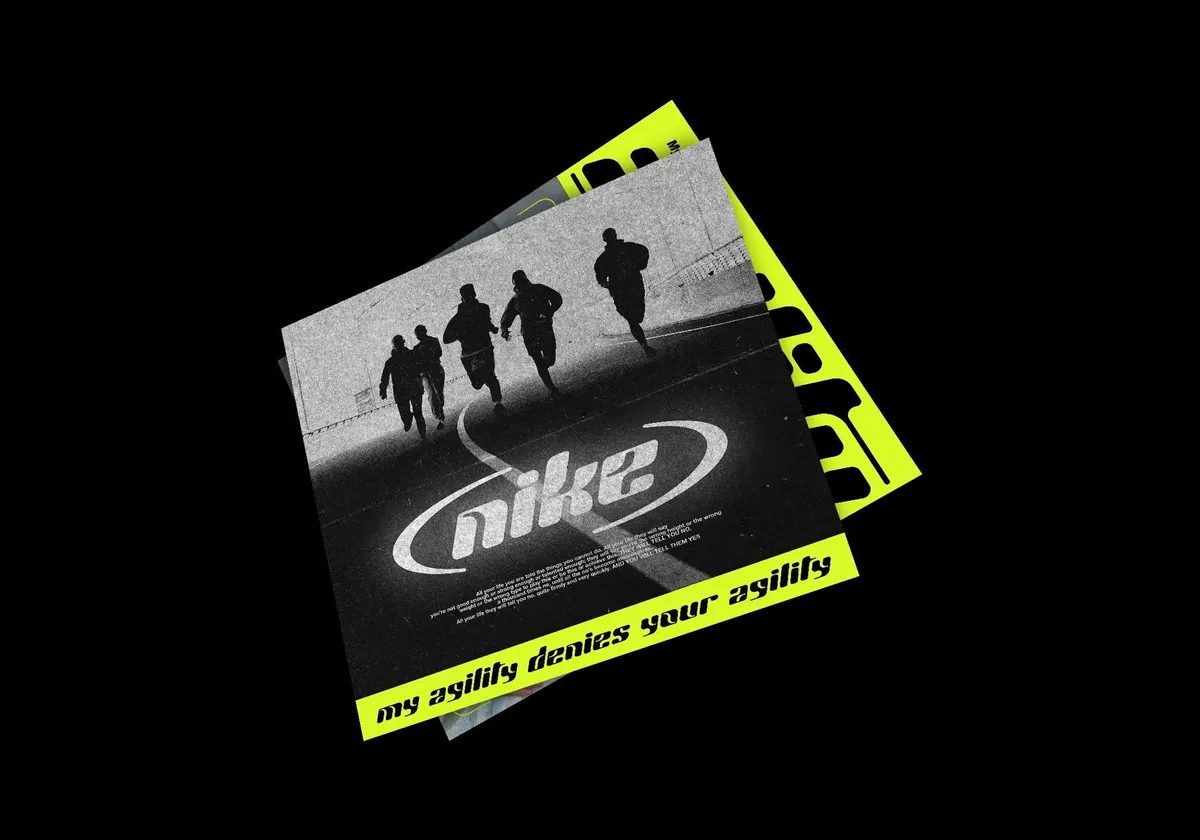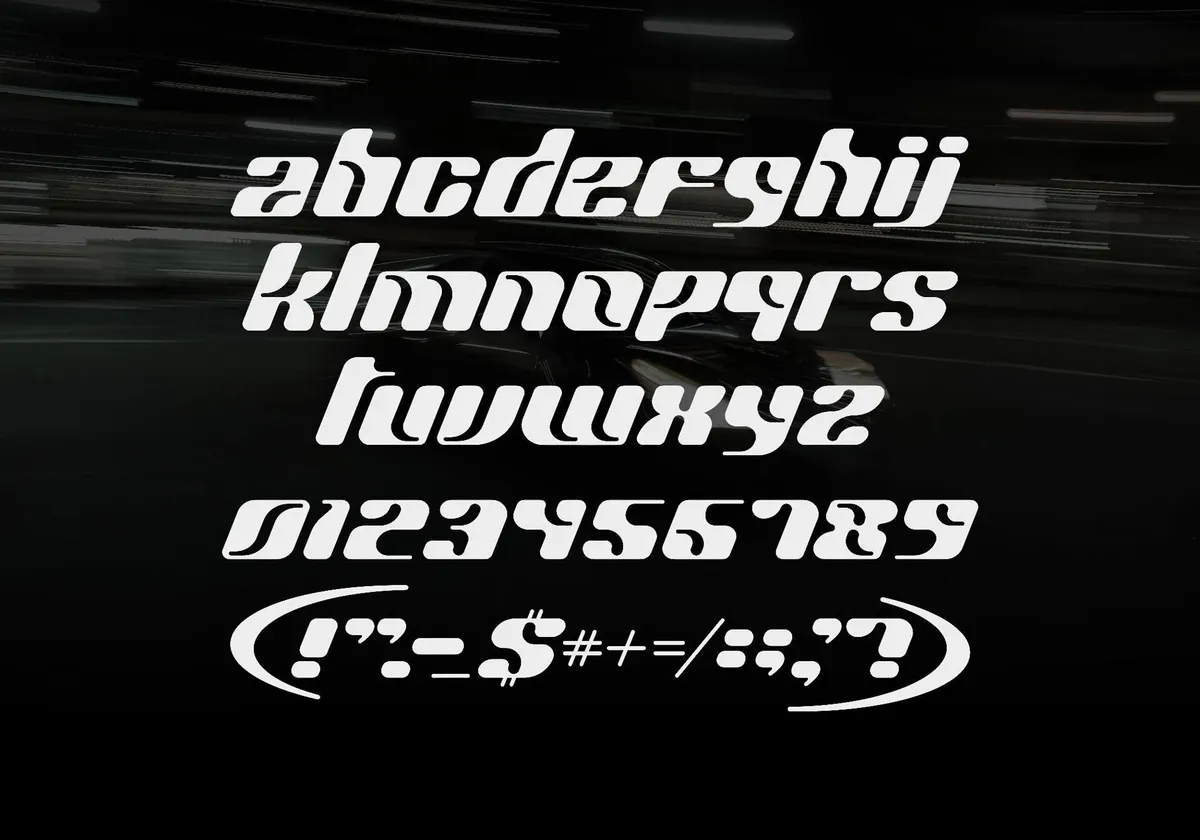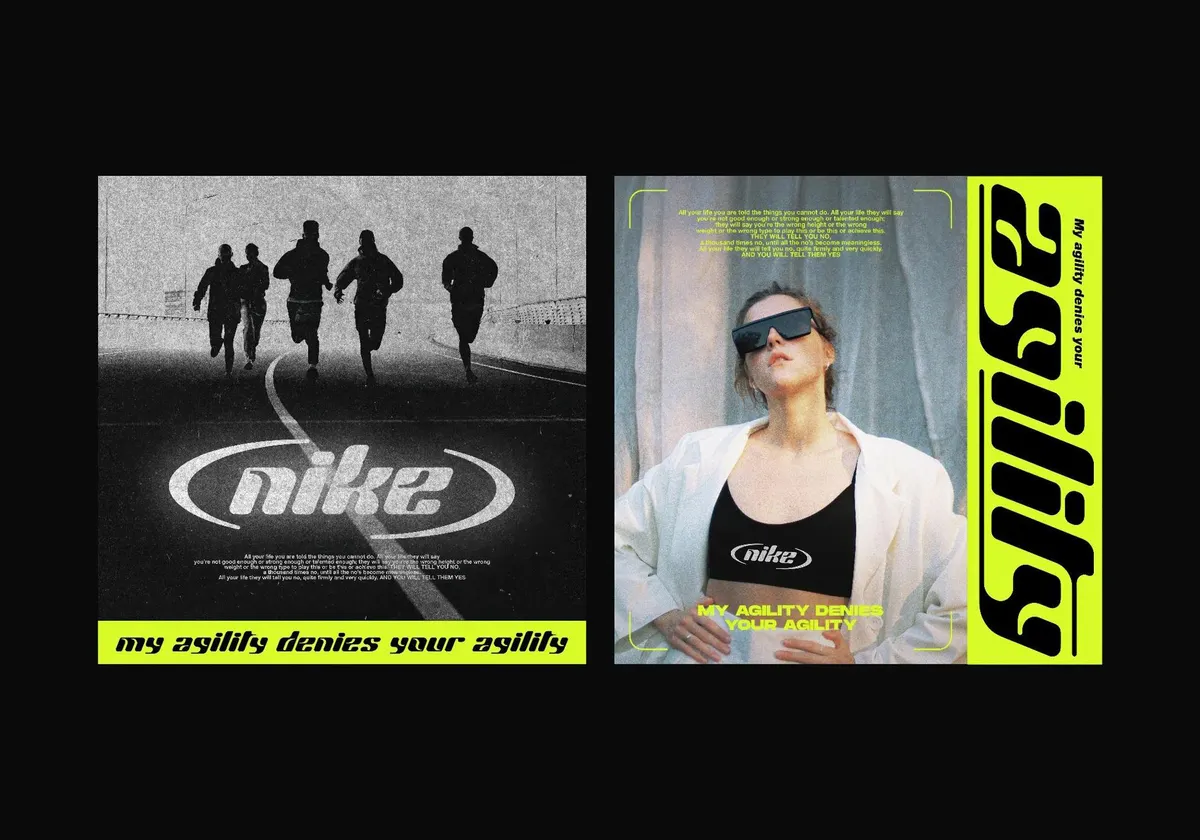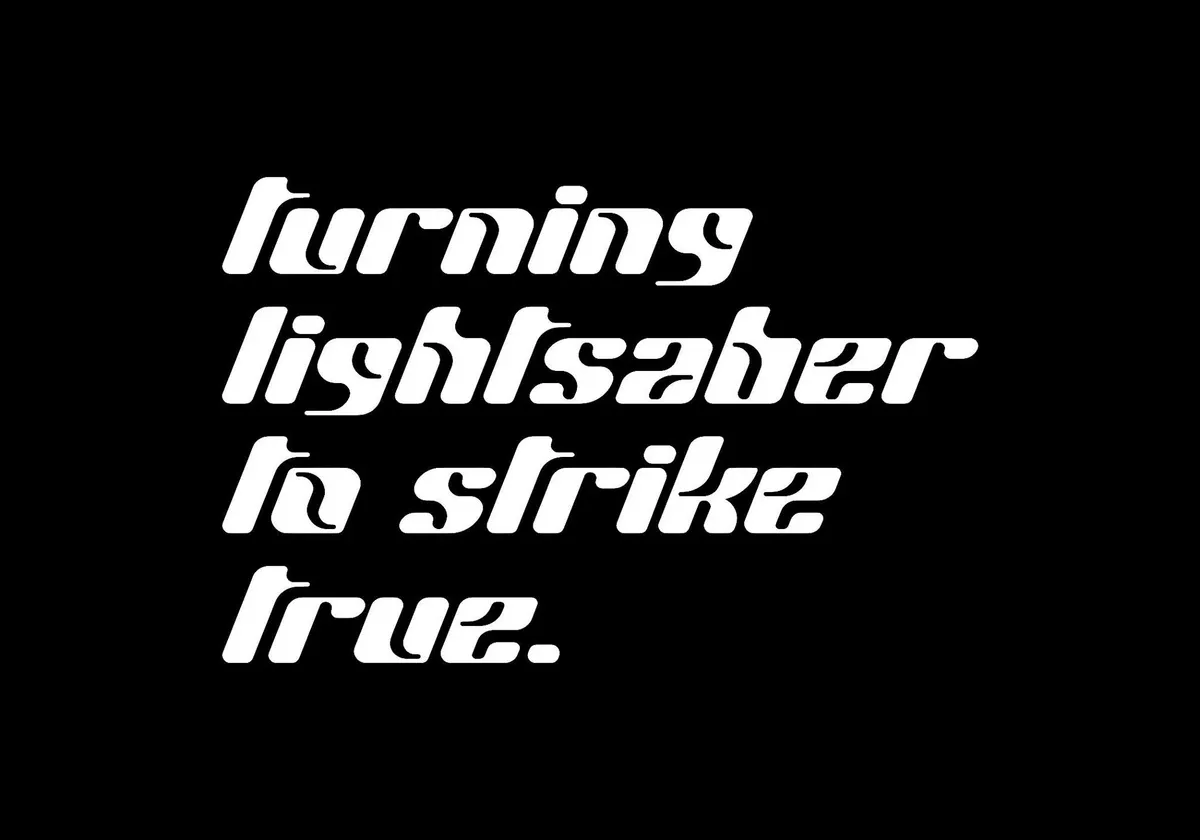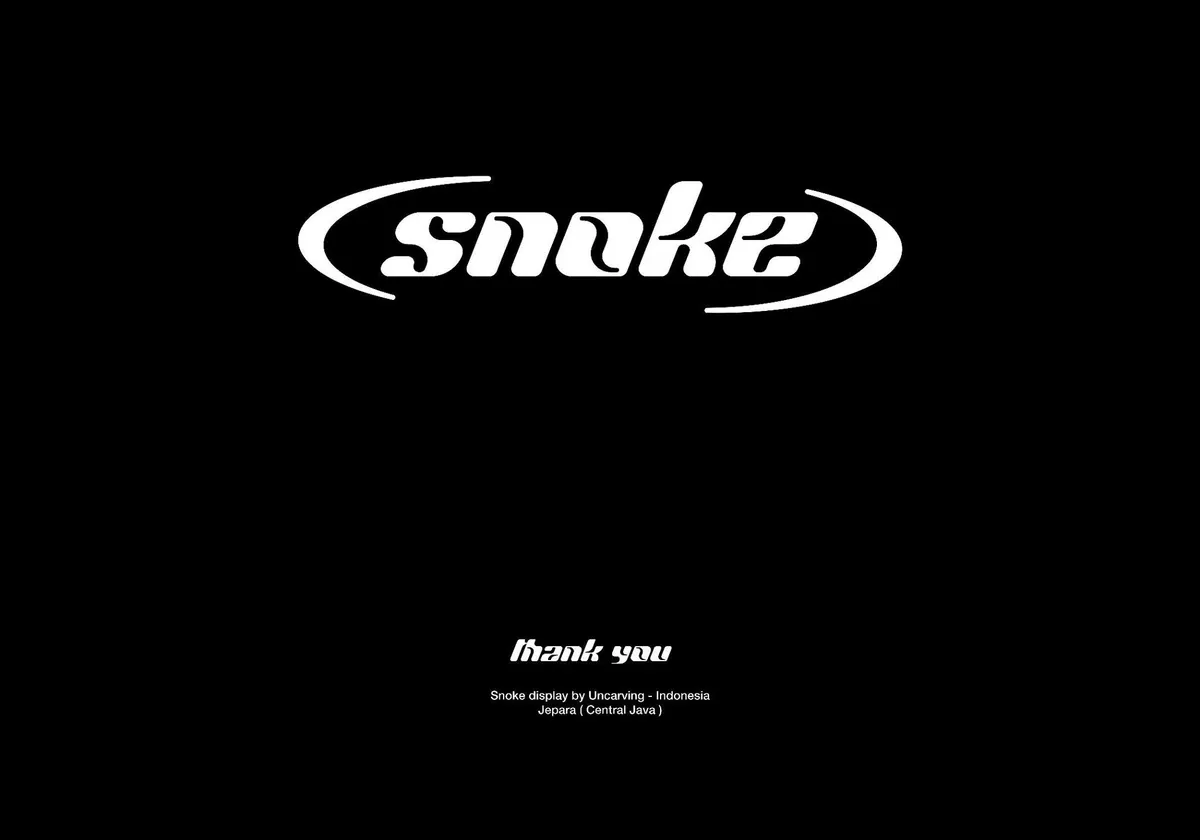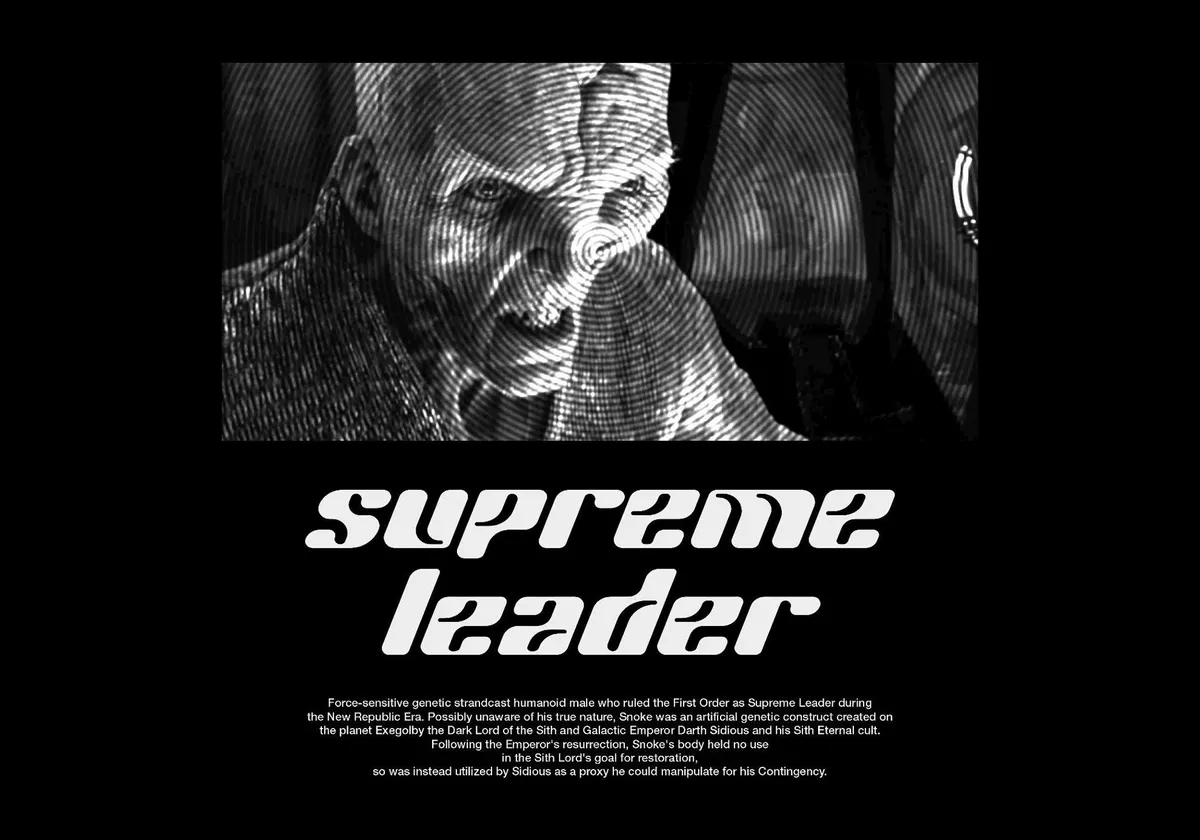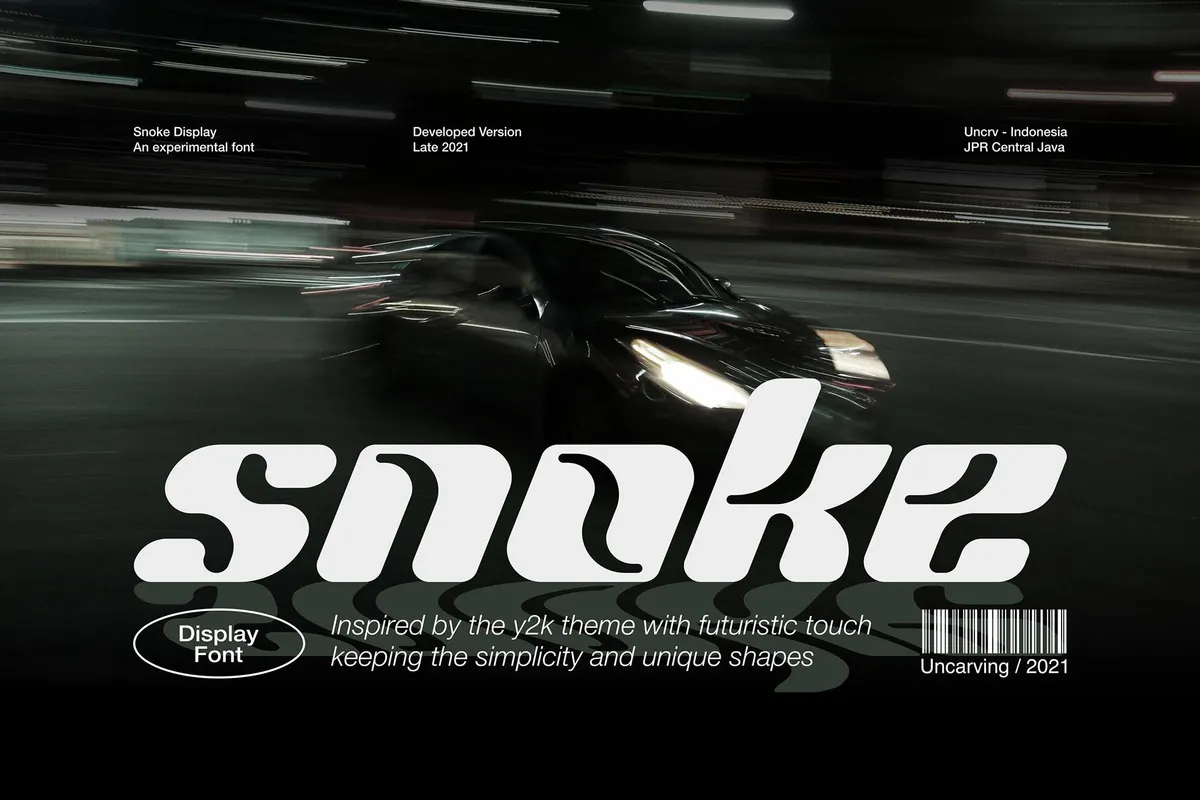
Snoke — Display font
Snoke feels like Y2K threw a reunion party and every single iconic shape of the year 2001 actually showed up. It’s a love letter to the early 2000s — the chunky, futuristic type one's teen-self thought was the height of cool.
We mean, just look at those shapes. You want organic? It's got curves. You want urban? It looks straight out of a subway poster circa but in a timeless way. It’s simplicity with a twist — like if Helvetica got a late-night text from Comic Sans and actually answered. With this font, you’re getting lowercase, numerals, and just enough punctuation to keep it streamlined, yet make a statement. Great for that album cover, streetwear label, or whatever project demands “futuristic, but make it a throwback.”